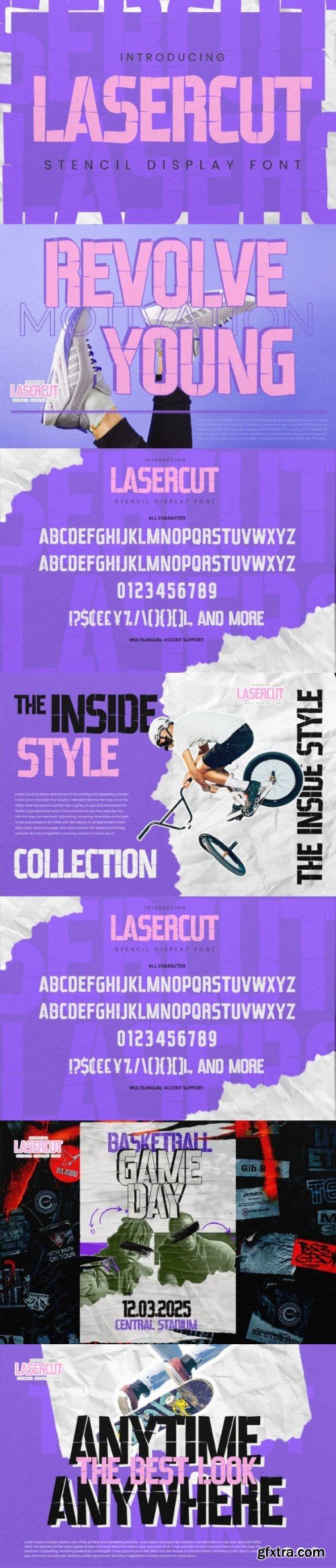
激光切割字体
Lasercut is a cool and modern display font that combines sleek lines and sharp angles to create a futuristic and high-tech look. Its precise and intricate letterforms are reminiscent of laser-cut designs, adding a touch of sophistication and innovation to your projects. Whether for logos, branding, or headlines, Lasercut is sure to make a bold and memorable statement.